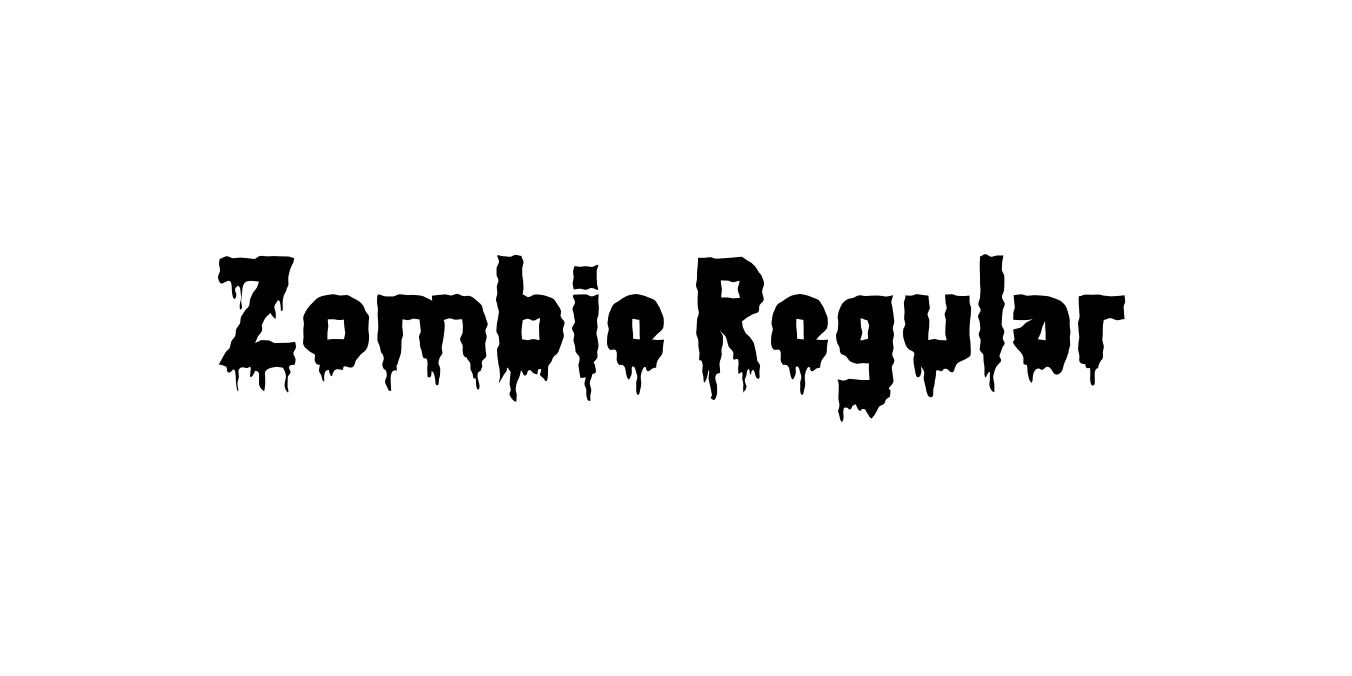
Zombie Regular
Designed by Harold Lohner
| Category | Display / Horror |
| Designer | Harold Lohner |
| Similar Fonts | Creepster, Nosifer, Chiller, Shlop |
Zombie Regular is a quintessential horror-themed display typeface that draws inspiration from the gritty aesthetics of mid-century pulp magazines and classic undead cinema. The font features irregular, eroded edges and a hand-drawn quality that mimics the appearance of weathered tombstones or decaying matter. Its bold, heavy letterforms are designed to make a visceral impact, ensuring that text remains legible even with its distressed and macabre stylings.
Since its release, Zombie Regular has become a favorite among graphic designers for seasonal promotions and atmospheric branding. It effectively balances a sense of playfulness with genuine creepiness, making it versatile for both children's Halloween parties and more mature horror projects. The typeface's rugged structure allows it to stand out on high-contrast backgrounds, making it a reliable choice for large-scale print and digital media.
Zombie Regular Best Uses
Perfect for advertising haunted houses, Halloween events, or horror film festivals.
Ideal for UI elements and titles in survival horror or zombie-themed video games.
Great for edgy t-shirt prints, stickers, and heavy metal band branding.
Excellent for creating eye-catching, spooky content during the October season.